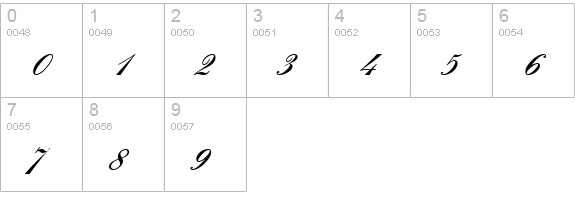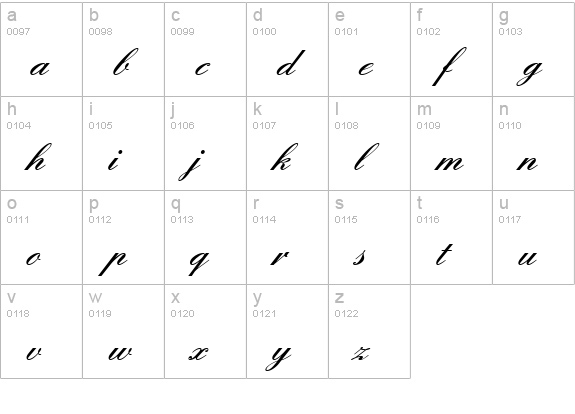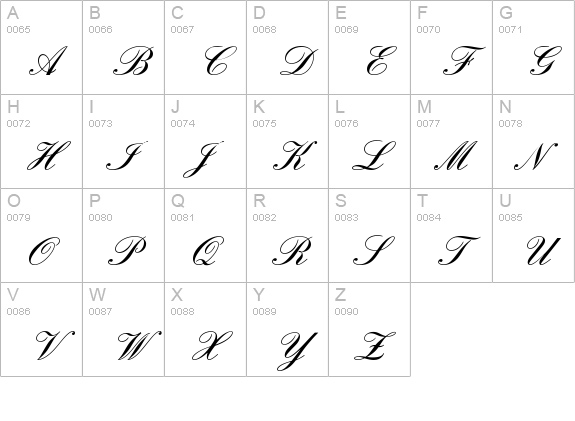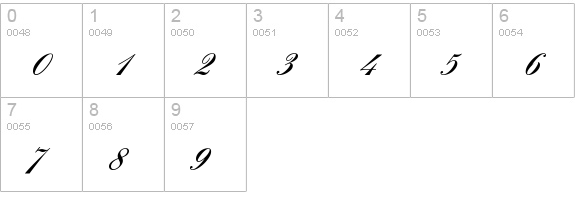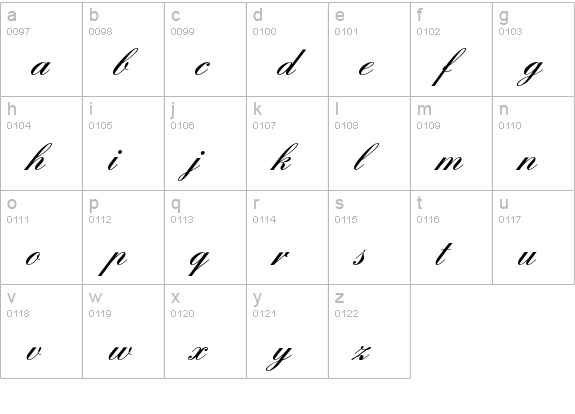
EnglischeSchTDemBol Font Details
EnglischeSchTDemBol is a timeless and elegant font that exudes sophistication and charm. With its bold and well-defined letterforms, this typeface is perfect for creating eye-catching headlines or adding a touch of class to any design project. Its classic and versatile design makes it suitable for a wide range of applications, from print materials to digital media. What's even better is that EnglischeSchTDemBol is available for free download at FontsMarket.com. This means you can easily access this beautiful font and use it in your projects without any cost. Don't miss out on the opportunity to enhance your designs with this stunning typeface that combines tradition with modernity. Download EnglischeSchTDemBol today and elevate your creations to new heights of style and sophistication.